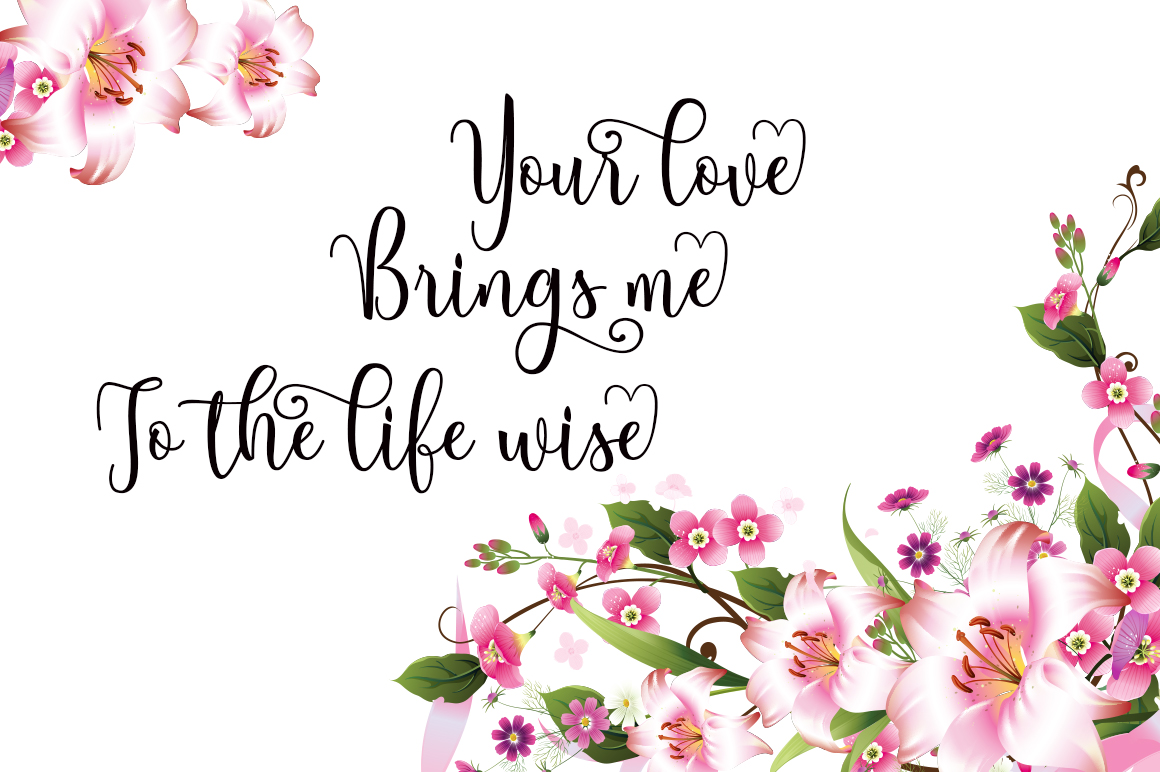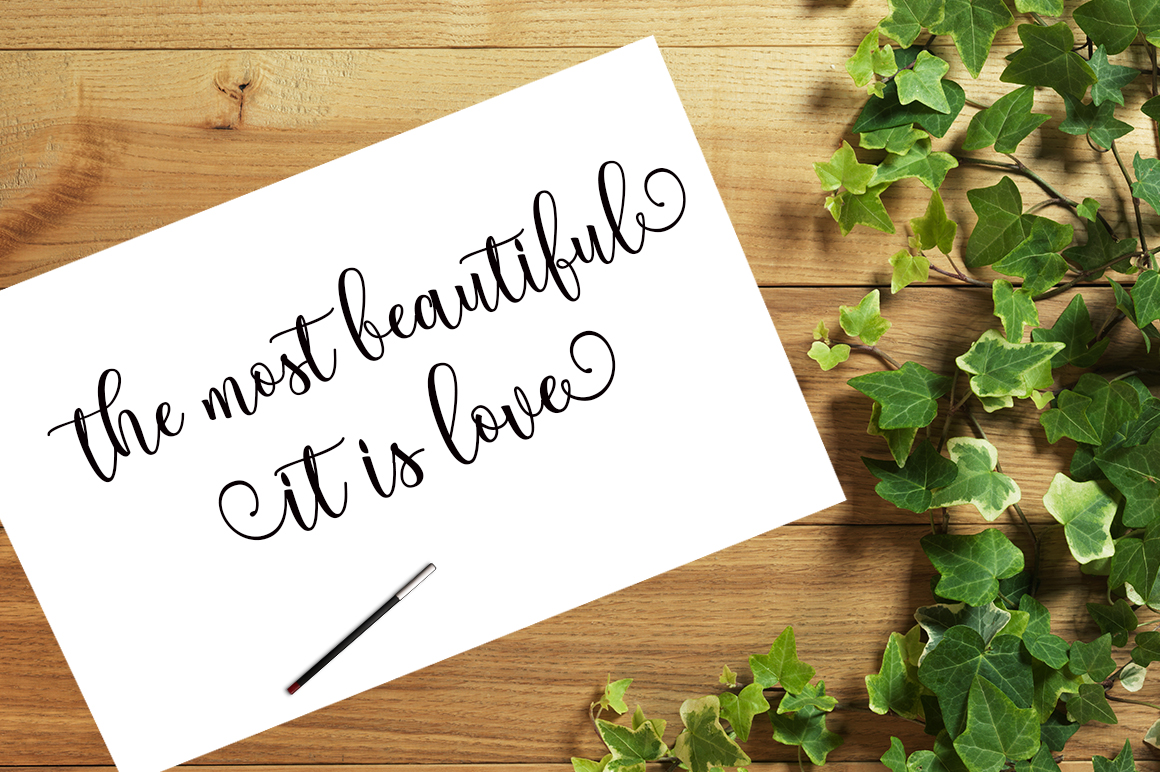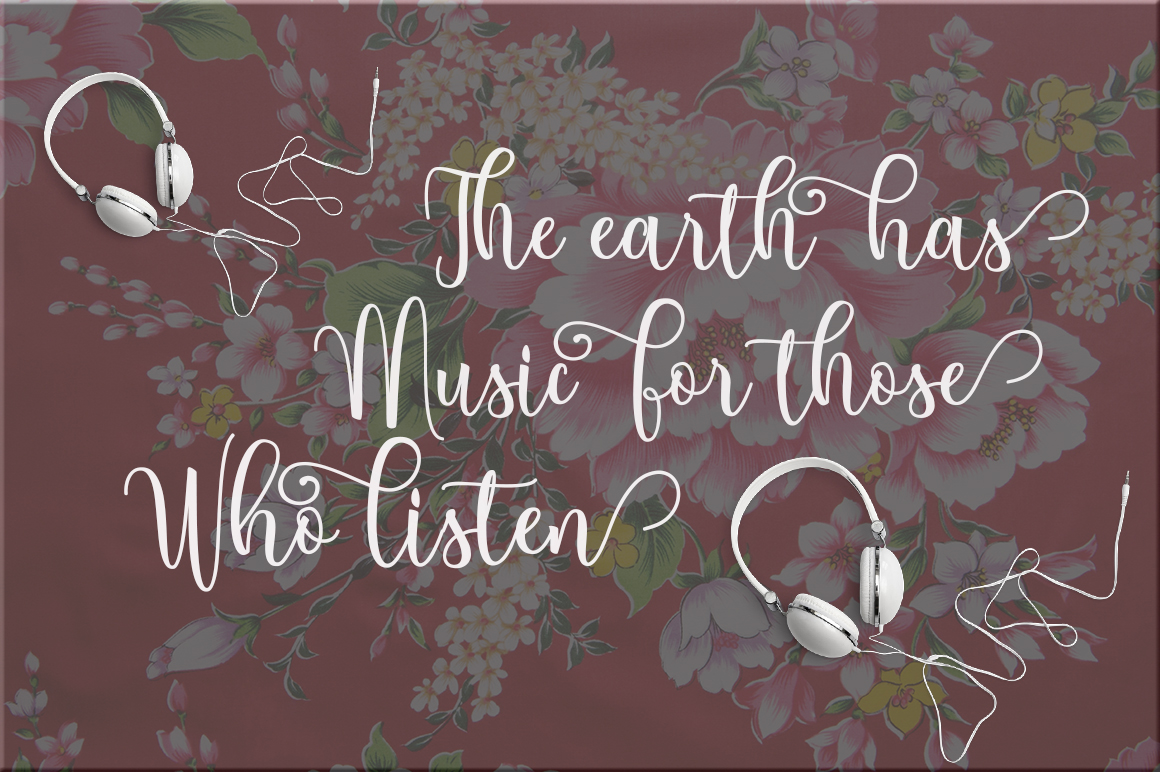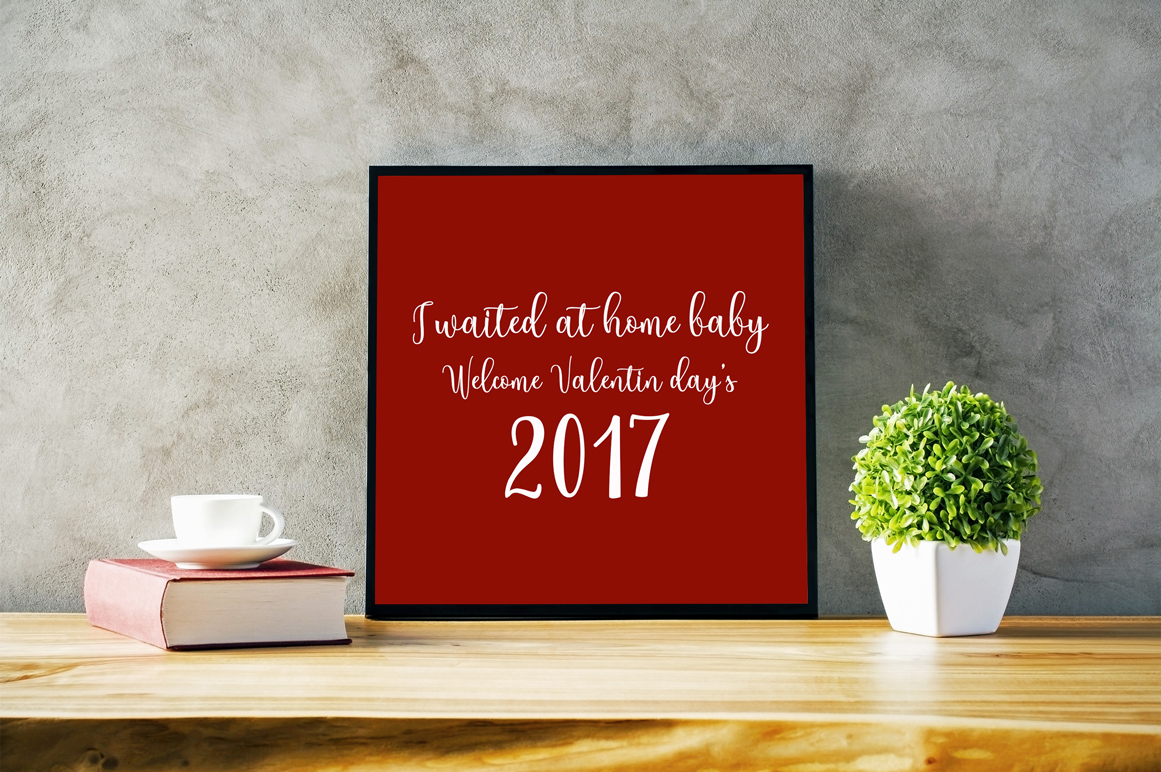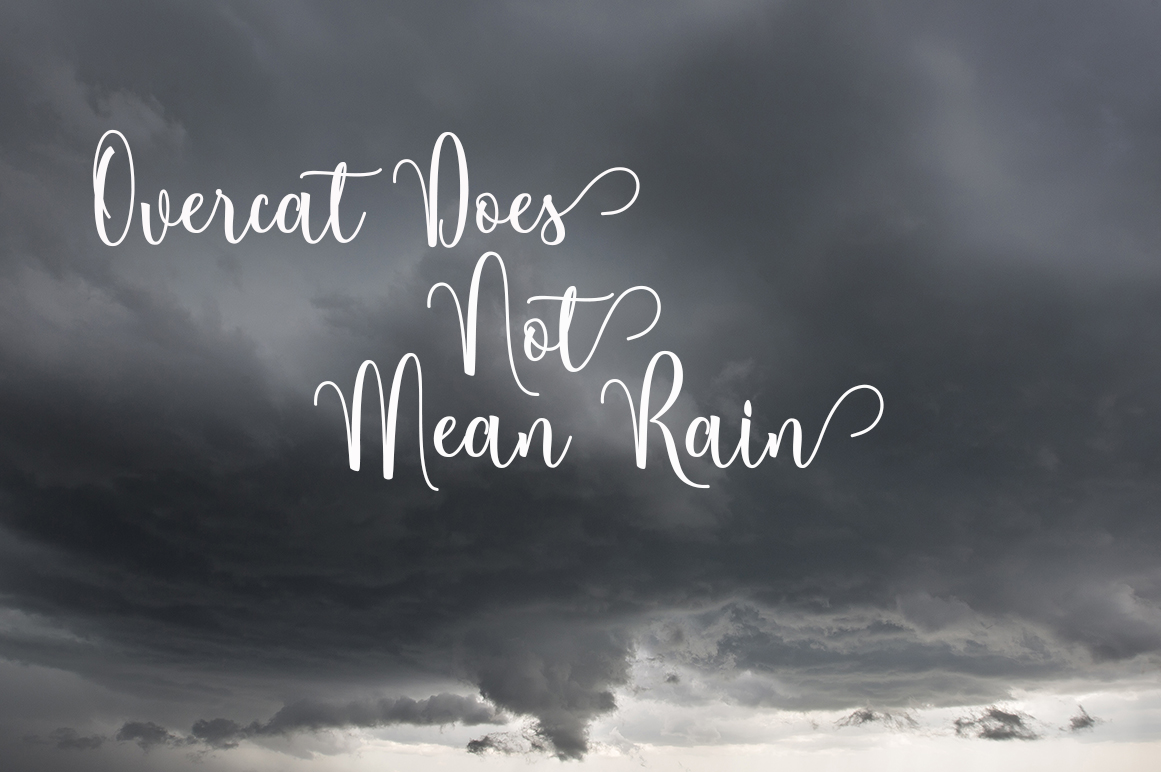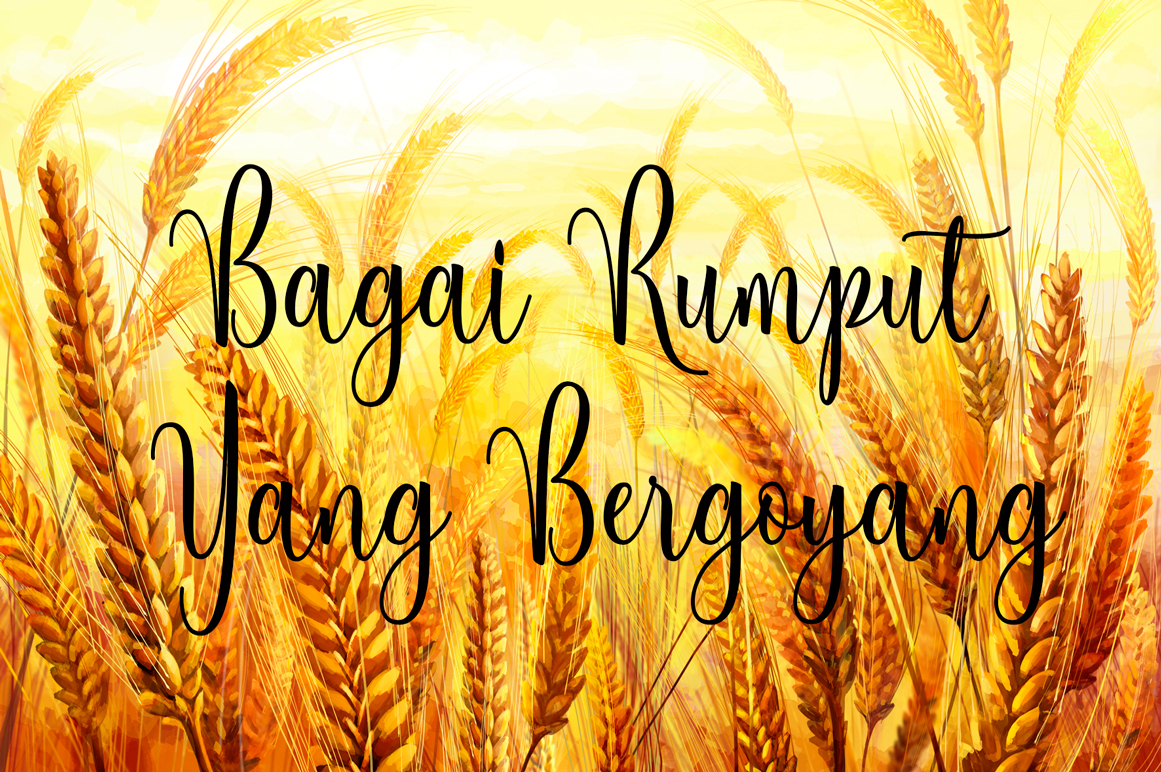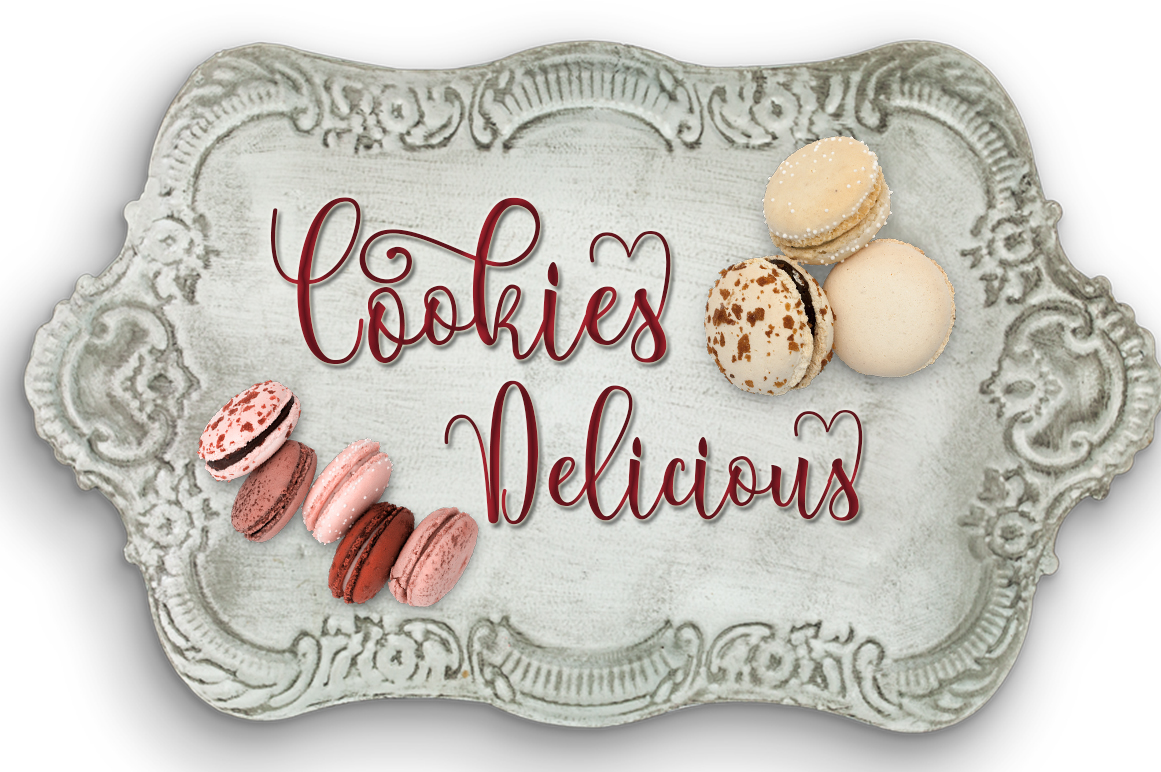
HomeScript FontsBerleyila Font Script Fonts Berleyila Font FacebookXPinterestWhatsApp Berleyila Font Poster 2 Berleyila Font Poster 3 Berleyila Font Poster 4 Berleyila Font Poster 5 Berleyila Font Poster 6 Berleyila Font Poster 7 Berleyila Font Poster 8 About Berleyila Font Berleyila is a modern calligraphy font created by the Polem foundry. It was designed completely by hand. DOWNLOAD ON CREATIVE FABRICAThis font is sold and delivered by Creative Fabrica. Font Canyon may earn a commission if you buy through this link. People also explored Halloween Night Lo Font Chewy Caramel Cute & Funny Font Yegrith Script Font Astronueu Black Font Gunday Font Jeda Font Rhiformya Font Fraktura 327 0 TagsBerleyila Font Previous articleBrambles FontNext articleChasing Hearts Font LEAVE A REPLY Cancel reply Comment: Please enter your comment! Name:* Please enter your name here Email:* You have entered an incorrect email address! Please enter your email address here Website: Save my name, email, and website in this browser for the next time I comment. Personal Use Free Oaklevin Personal Use Free Read more about this font BD Console Personal Use Free Read more about this font Handayani Personal Use Free Read more about this font Written by Hand Personal Use Free Read more about this font BLOG To increase your work productivity, choose the most readable fonts. In today's fast-paced work environment, where digital communication and information consumption are integral to our daily routines, the choice of fonts can significantly impact... 5 Fonts That Will Dominate Design Trends in 2026 Best Fonts for YouTube Videos: Make Your Thumbnails Stand Out Transform Your Website: Elevate Your Typography with 7 Best Web Font Generators